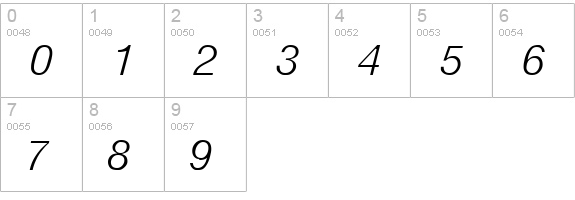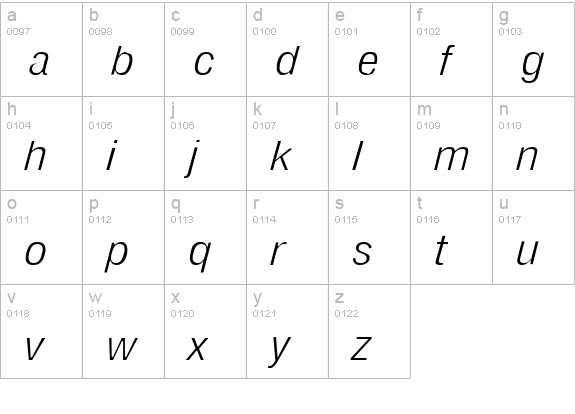
Milford Light Italic is a refined, elegant, italic variant in the Milford typeface family \xE2\x80\x94 well suited to elegant body text, refined sub-headings, and luxury branding.
Milford Light Italic font is a harmonious blend of elegance and modernity, offering a distinctive touch to any design project. This font exudes a sense of sophistication and refinement, making it perfect for a wide range of applications. With its refined curves and delicate strokes, Milford Light Italic font adds a touch of grace and elegance to any text. Its unique italic style lends a sense of movement and fluidity, creating a captivating visual experience. Whether used for headlines, body text, or branding elements, this font is sure to make a lasting impression. What sets Milford Light Italic font apart is its versatility and adaptability. It effortlessly complements both traditional and contemporary designs, adding a touch of finesse to any layout. Its clean and legible letterforms ensure optimal readability, even at smaller sizes. One of the greatest advantages of Milford Light Italic font is that it is freely available to download at FontsMarket.com. This means that designers and creatives can easily access and utilize this exceptional font in their projects without any cost. Its availability as a free font makes it an invaluable resource for both personal and commercial use. Whether used for branding, advertising, web design, or print materials, Milford Light Italic font is a powerful tool that adds a touch of sophistication to any project. Its sleek and stylish appearance, combined with its free availability, makes it an excellent choice for designers seeking elegance and versatility in their typography.